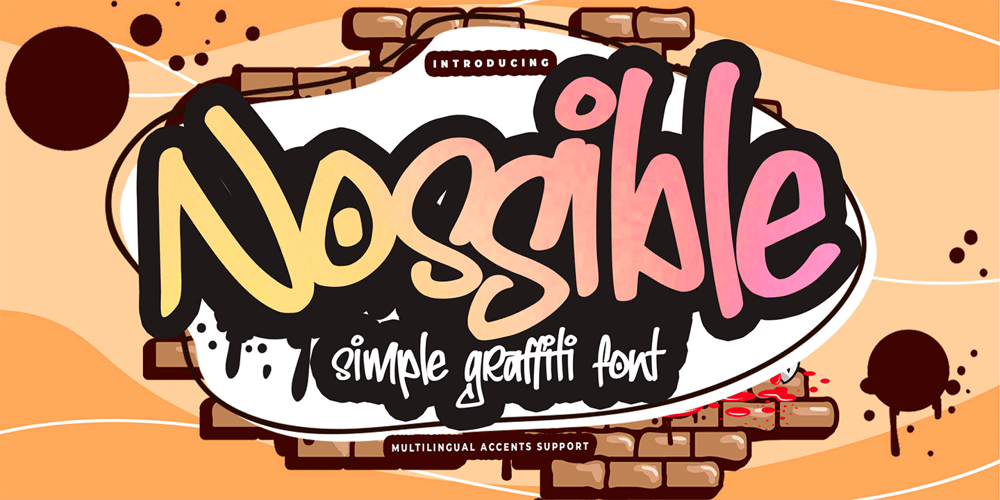
Nossible Font Family was designed by Abdul Malik Wisnu, Anang Fibriyanto and published by Gassstype. Nossible contains 1 styles and family package options. Introducing Nossible It’s Simple Graffiti Font is a Natural Style and Authentic classy style, this font is great for your creative projects such as watermark on photography, and perfect for logos & branding, invitation,advertisements,product designs, stationery.It also features a wealth of special features including You can activate 11 Ligatures OpenType panel.